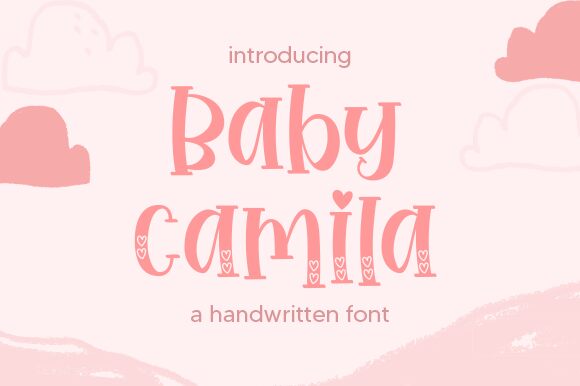
Welcome to the world of Baby Camila Love font! Created by Nirmala Creative, this adorable typeface is perfect for all your romantic and heart-warming projects. With its cheerful curves and playful lines, Baby Camila Love is sure to bring a smile to anyone's face. Its cute valentine style makes it the ideal font for greeting cards, love letters, wedding invitations, and so much more. Whether you're designing for personal or professional use, Baby Camila Love is the charming semi-bold font that will add a touch of sweetness to any project. Spread some love with Baby Camila Love!